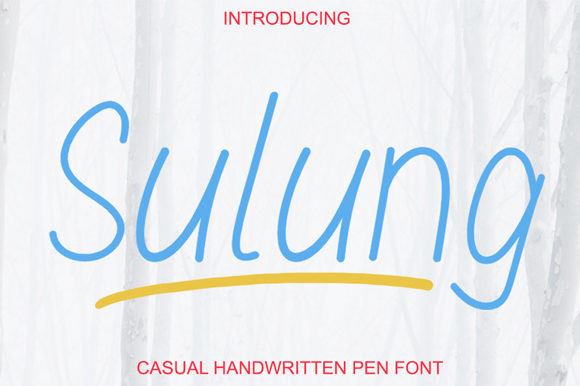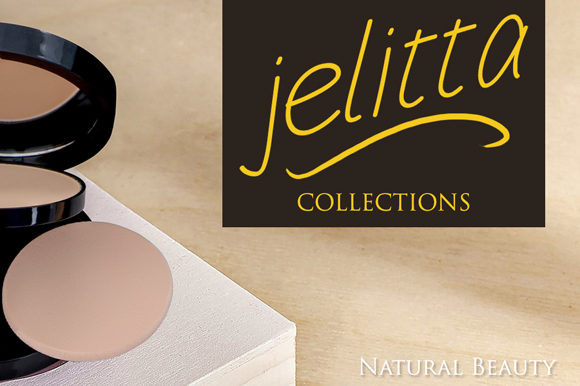
Sulung Font
Sulung is a cute and casual handwritten font with an incredibly friendly feel. It features gorgeous swashes and ligatures that make this script incredibly versatile.